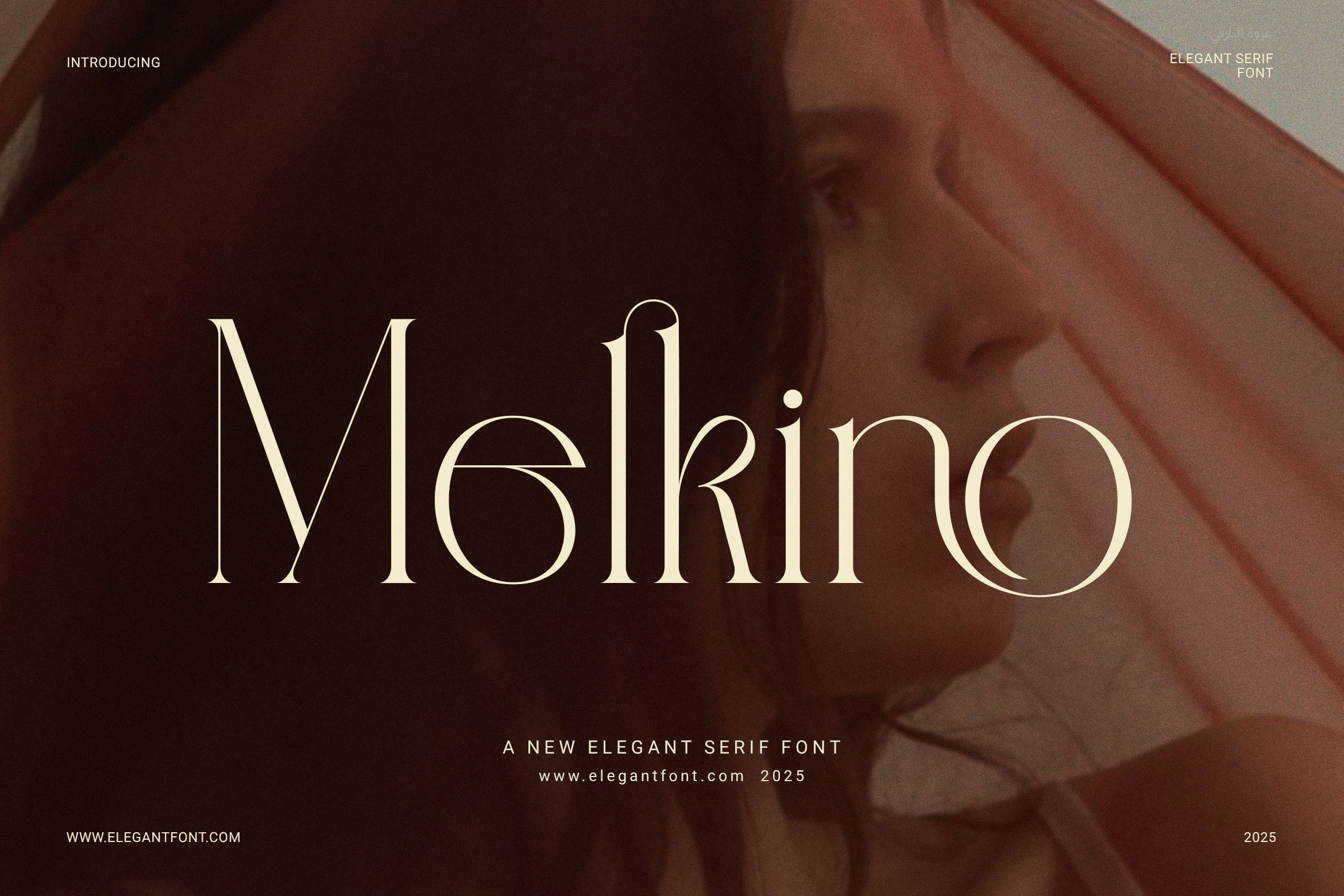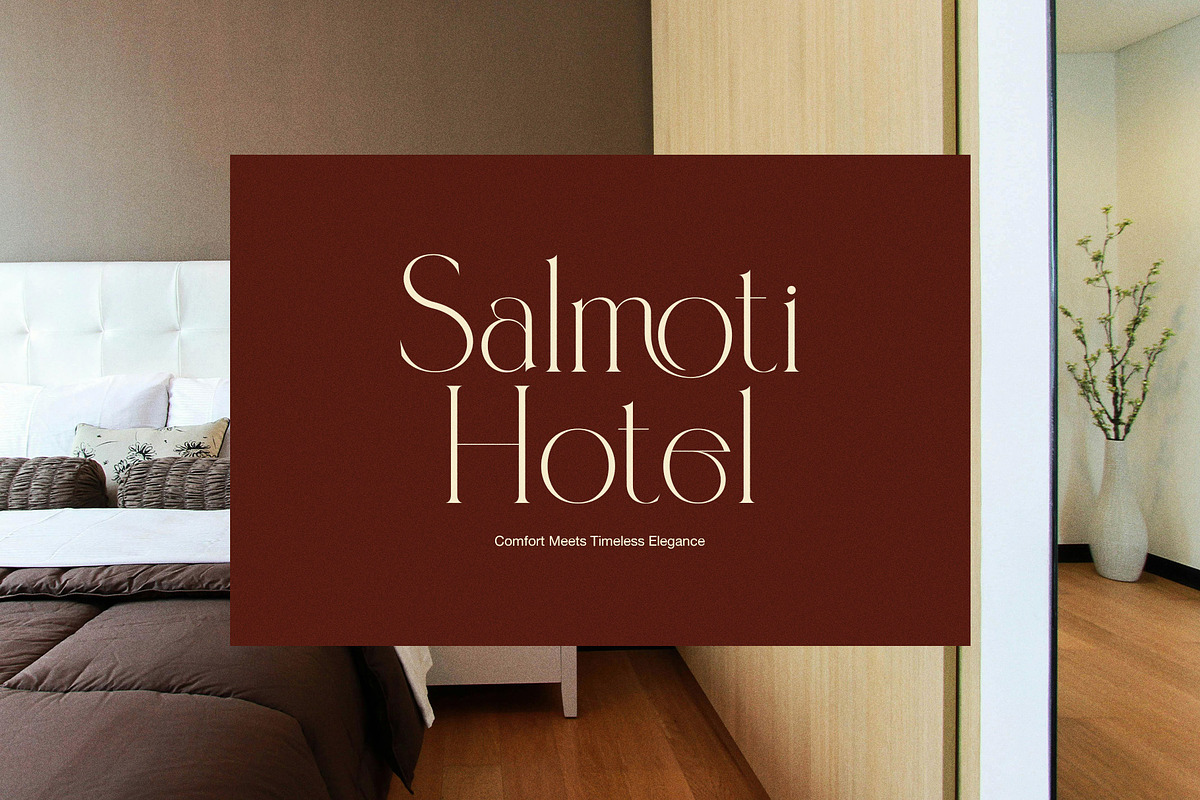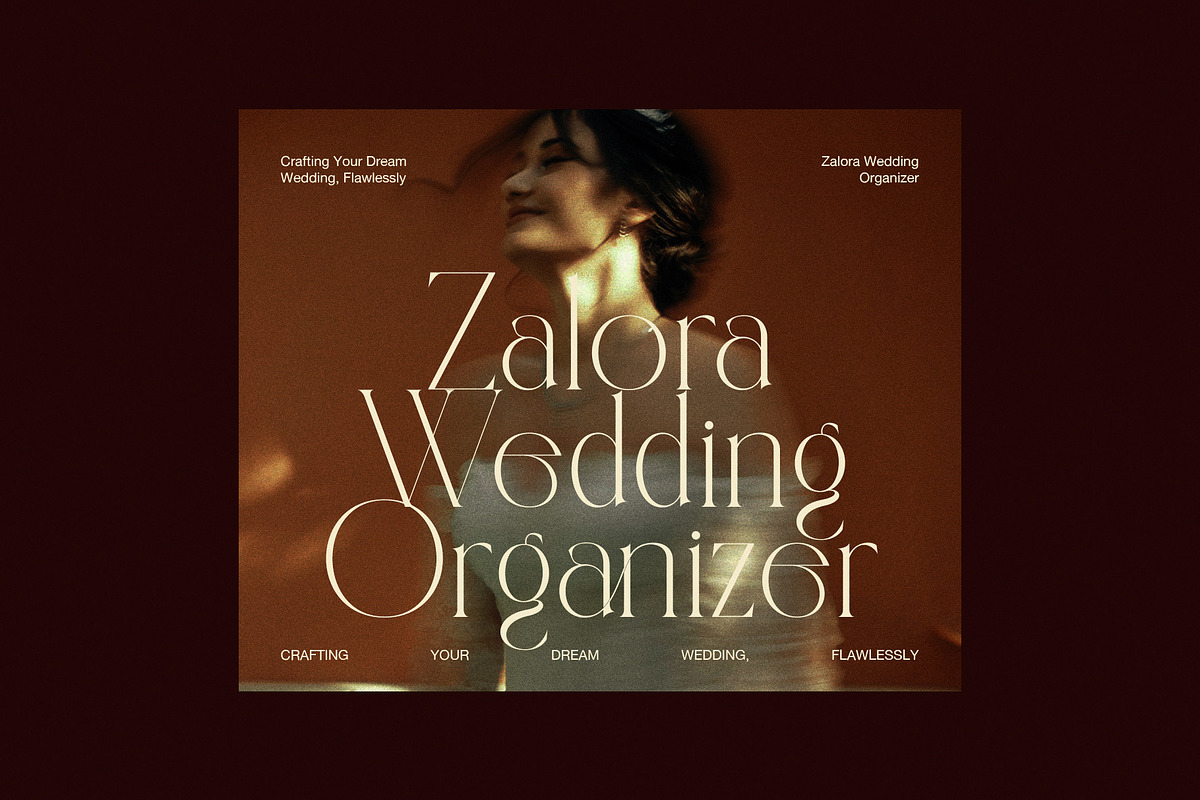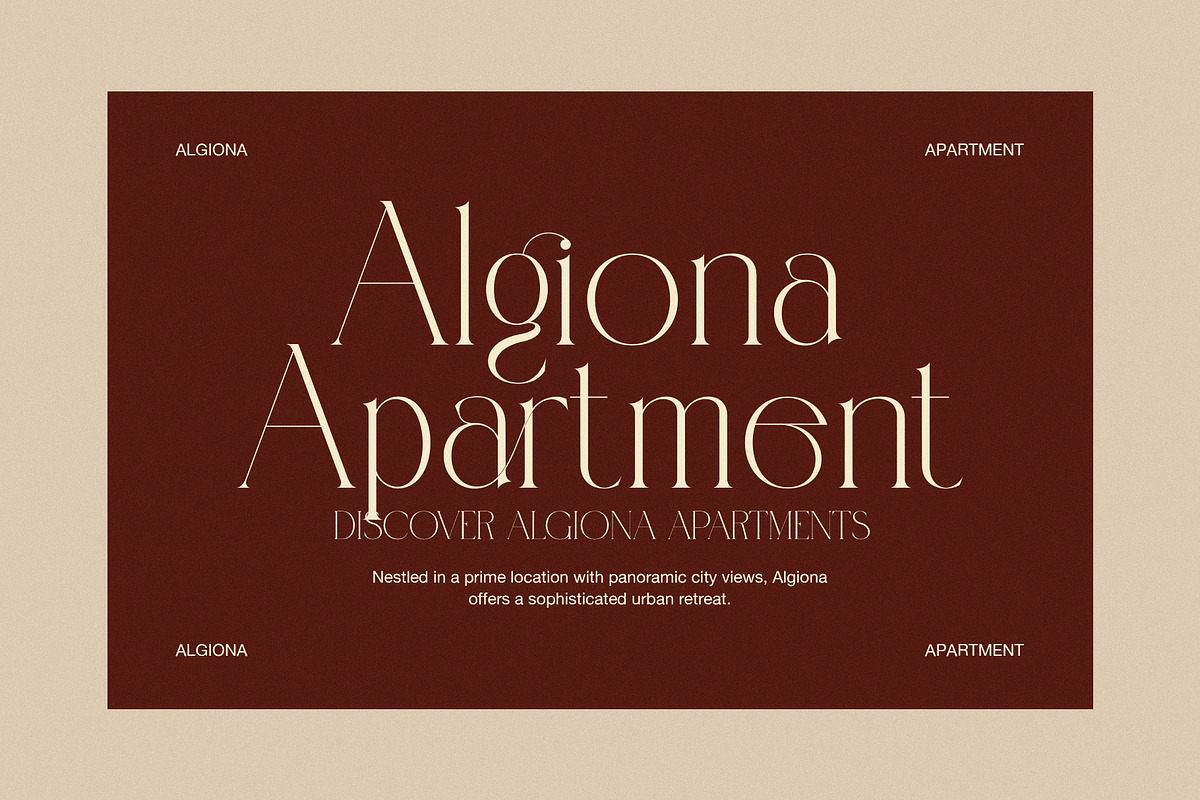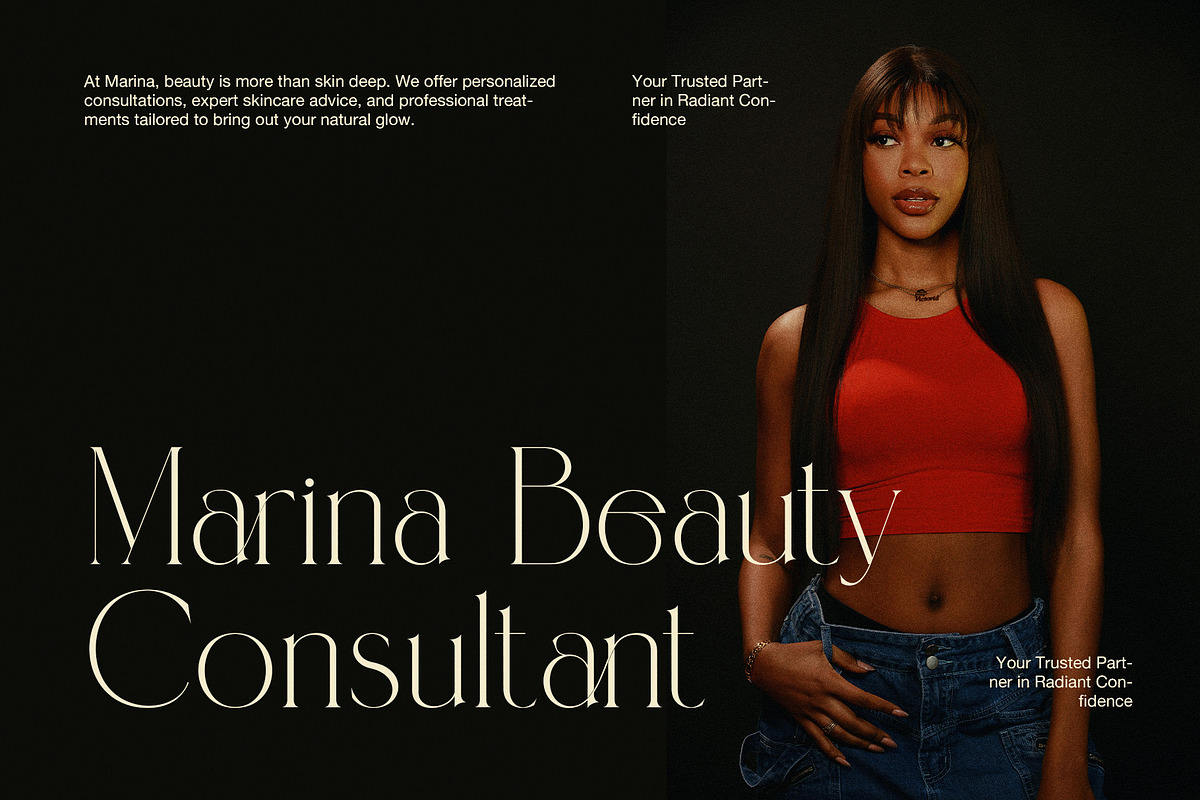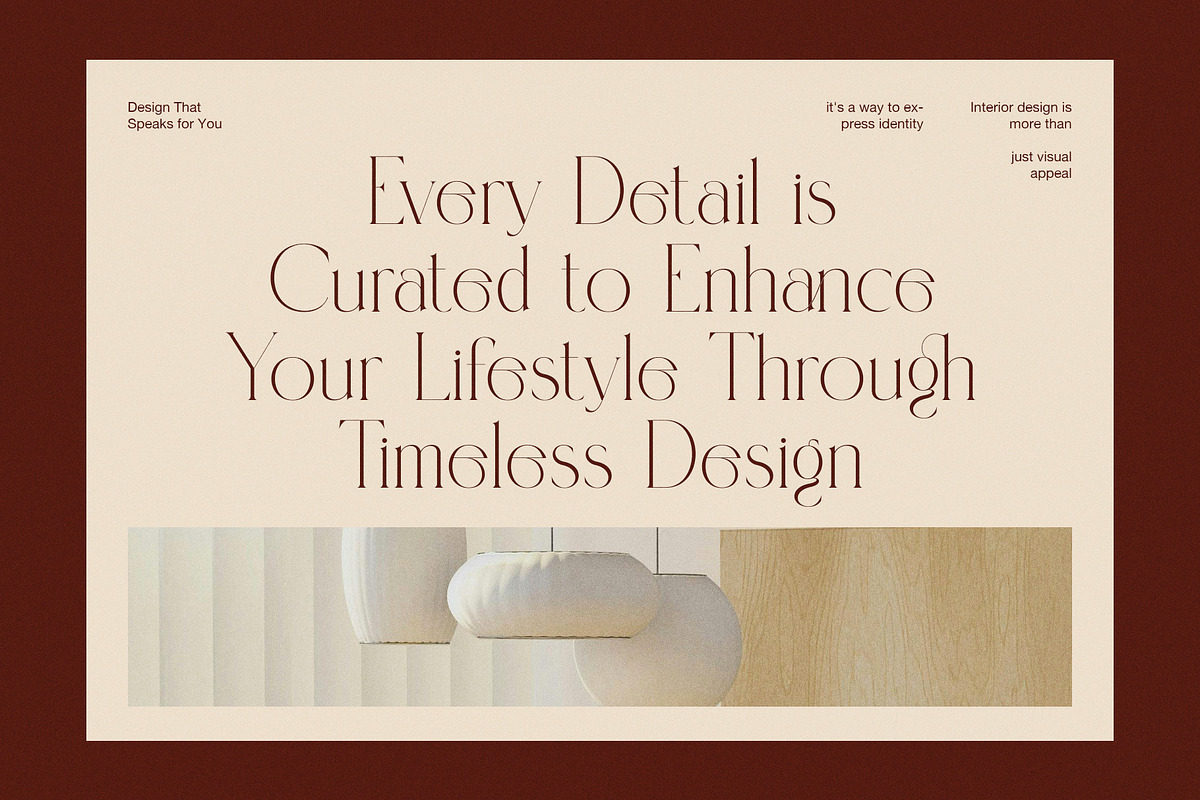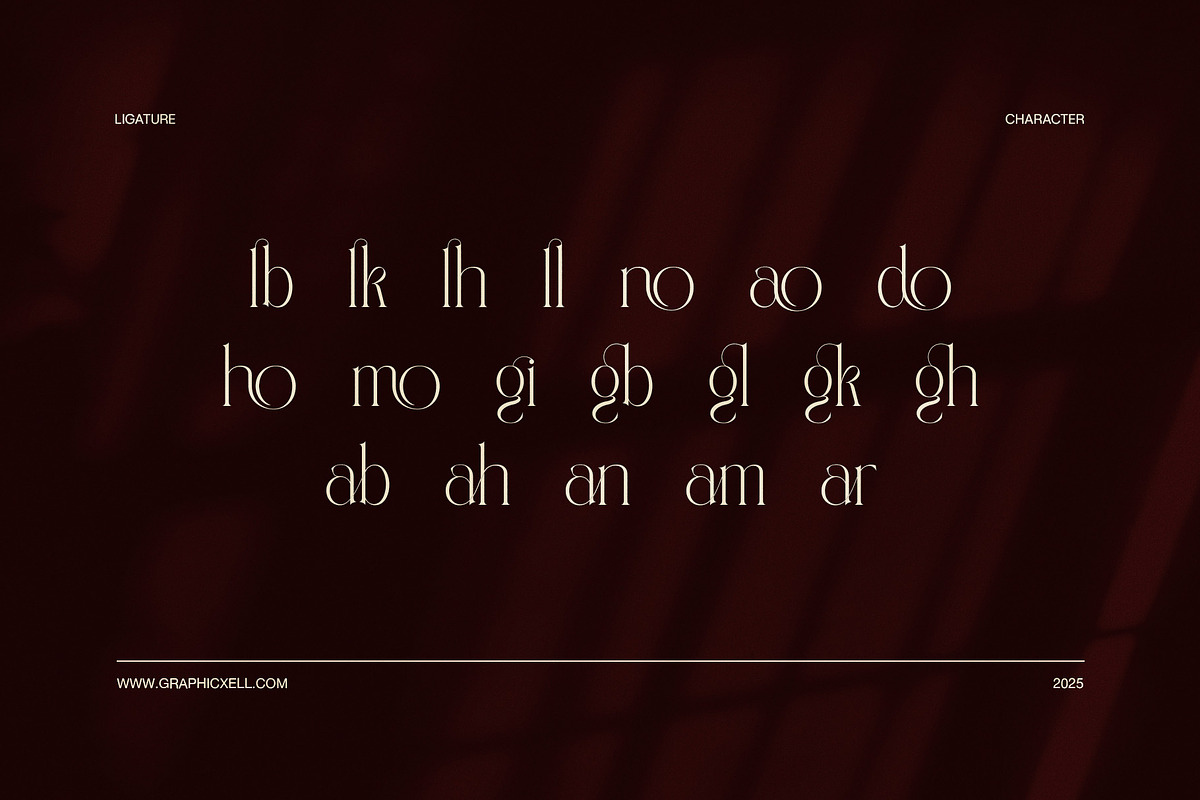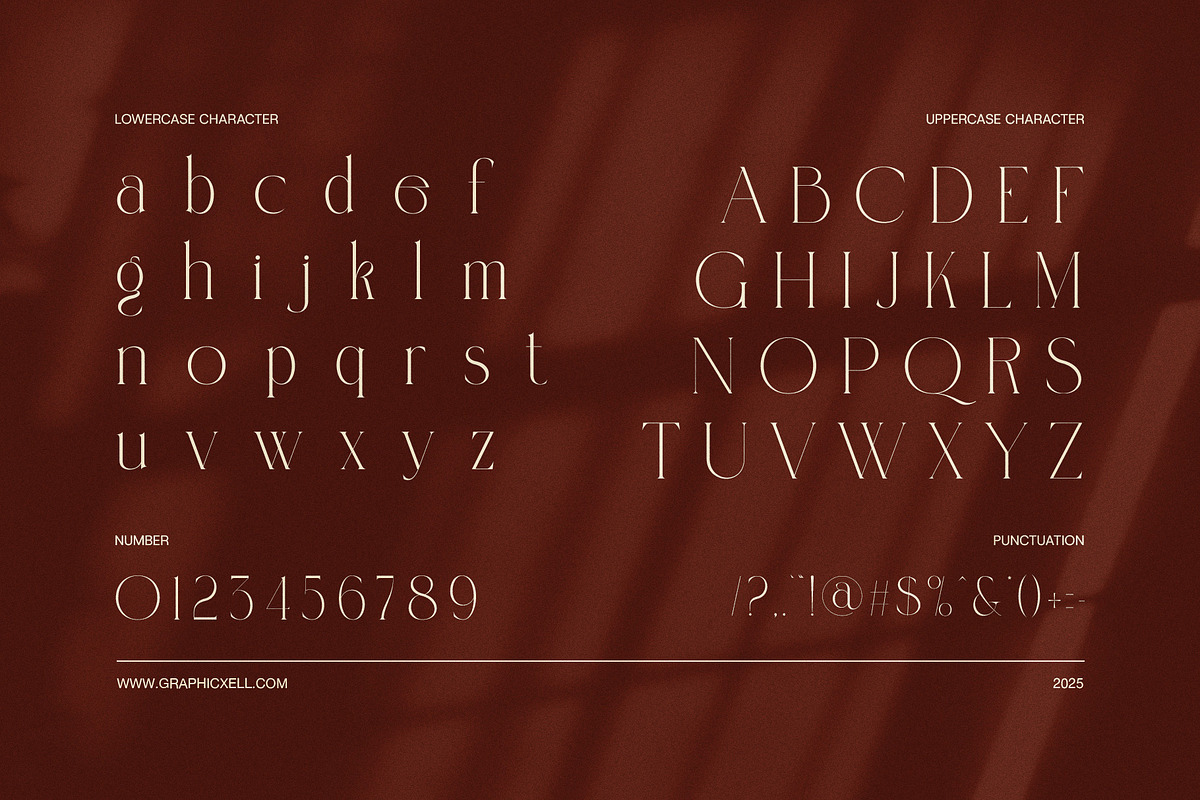
Melkino Elegant Serif Font
Melkino Elegant Serif Font is a graceful and modern typeface designed for premium, clean, and professional branding. It combines the timeless beauty of traditional serifs with a fresh, minimal twist—making it ideal for creators who want to add a sense of sophistication to their designs without being overly formal.
Each letter in Melkino is carefully crafted with balanced proportions, making it look refined in any size. Additionally, its functional ligatures enhance text flow and add a smooth, elegant finish to every word. As a result, this font looks polished, clean, and engaging in both digital and print formats.
Melkino is perfect for designers, marketers, and creatives who want to leave a strong and stylish impression. It’s more than just a typeface—it’s a tool to elevate your visual storytelling with clarity and class.